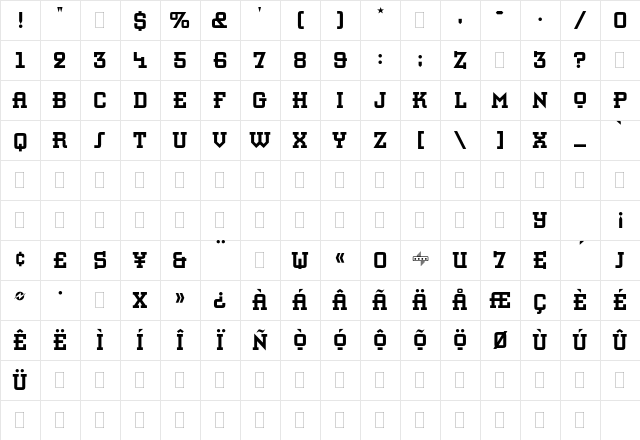
Retro Bold wears its vintage influences proudly, with letterforms that recall mid-century signage, classic packaging, and nostalgia-driven design. Its bold stroke weight gives it real presence on the page.
Font Pairing: Combine Retro Bold with a simple slab or neutral sans - period-accurate companions reinforce the vintage feel without competing for attention.
Pro Tip: Lean into Retro Bold's period character by pairing it with aged paper textures, muted colour palettes, and vintage illustration styles.